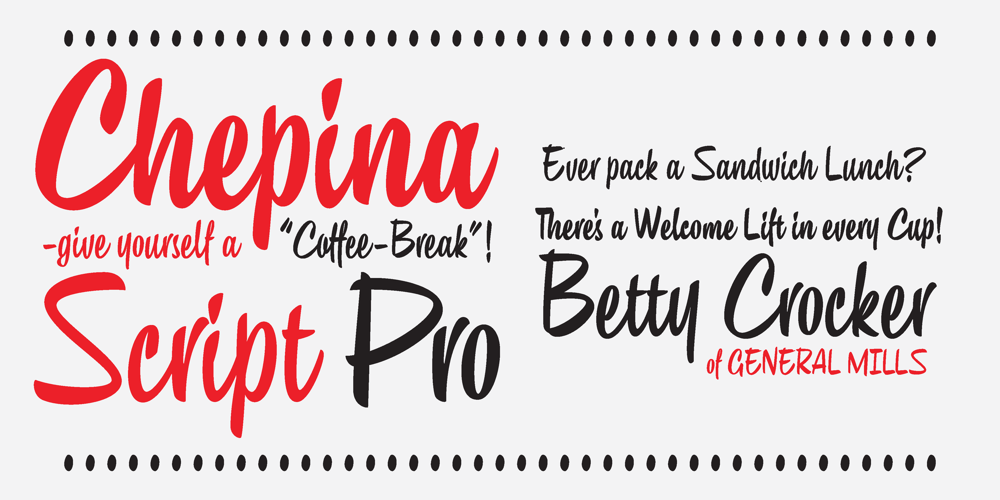
Chepina Script
Chepina Script font
Chepina Script Font Family was designed by Andrés Ramírez and published by Vástago Studio. Chepina Script contains 2 styles and family package options. This is a type design based on a retrospective food design posters from 1950 in the United States. The intention was to create handmade letters ideal for handmade projects. The principal reference was the book of Steven Heller Mid-Century Ads. This typeface was the graduation project of my degree as graphic designer.